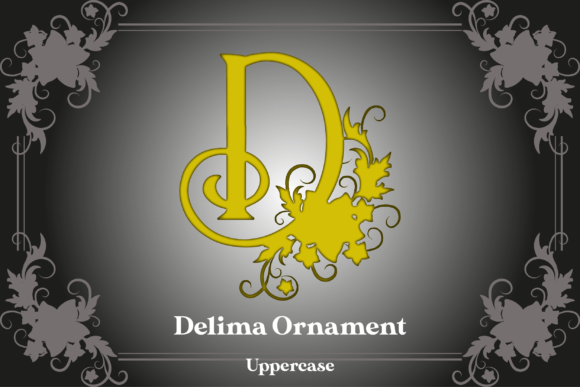
The Perfect Touch: Unleashing the Delight of Delima Ornament Font
As designers, we’ve all been there – staring at a blank canvas, waiting for inspiration to strike. And then, it happens. A spark of creativity ignites, and we’re off on a journey of self-expression. For me, it was a lazy Sunday afternoon, sipping coffee and browsing through font collections online. That’s when I stumbled upon Delima Ornament Font – a charming, whimsical creation that instantly caught my eye.
Delima Ornament Font is more than just a decorative font; it’s a versatile tool for adding a touch of elegance and sophistication to various products. From mugs and t-shirts to business cards and logos, this font is the perfect addition to any design project. As a designer, you know how valuable it is to have a reliable, go-to font that can elevate your creations to the next level. Delima Ornament Font is just that – a trusted companion that will help you bring your visions to life.
Delima Ornament Font Key Features
- Unique Ornate Design: Delima Ornament Font features intricate, hand-drawn ornaments and flourishes that add a touch of elegance and sophistication to any design project.
- Highly Customizable: The font includes a wide range of glyphs, including uppercase and lowercase letters, numbers, and punctuation marks, making it easy to create unique and personalized designs.
- Support for Multiple Languages: Delima Ornament Font supports a range of languages, including English, Spanish, French, German, Italian, and many others, making it a versatile choice for global designs.
- Perfect for Various Design Projects: Delima Ornament Font is ideal for use in wedding invitations, holiday cards, scrapbooking, and other craft projects where a touch of elegance and whimsy is desired.
Review: Delima Ornament Font
I recently had the chance to work with the Delima Ornament Font, and I must say it’s a unique and eye-catching addition to any design project. ✨ Here are some of its strengths:
- Unconventional yet elegant design: The font’s ornate details and curved lines add a touch of sophistication to any text.
- Highly customizable: With its wide range of weights and styles, you can easily match the font to your project’s specific needs.
- Good for decorative purposes: The font’s ornate nature makes it perfect for creating visual interest in headers, titles, or other prominent text.
However, there are some limitations to keep in mind: ⚠️
- Limited legibility: Due to its intricate design, the font may be difficult to read in smaller sizes or when used for large blocks of text.
- Not ideal for body text: The font’s ornate nature may distract from the content, making it better suited for decorative purposes.
Overall, I’d say the Delima Ornament Font is a great choice for designers looking to add some visual flair to their projects. While it may not be the best option for body text or small sizes, its unique design and high customizability make it a great addition to any design arsenal.
Tips for Getting the Most Out of Delima Ornament Font
For optimal results, use the Delima Ornament font in conjunction with a bold or italic font to create a striking visual effect. Experiment with different font sizes and colors to add depth and contrast to your design. Additionally, consider using the font in combination with ornate or decorative elements to create a unique and eye-catching design.
The Delima Ornament font is ideal for use in wedding invitations, party decorations, and other festive designs. It can also be used to add a touch of elegance and sophistication to business cards, letterheads, and other corporate materials.